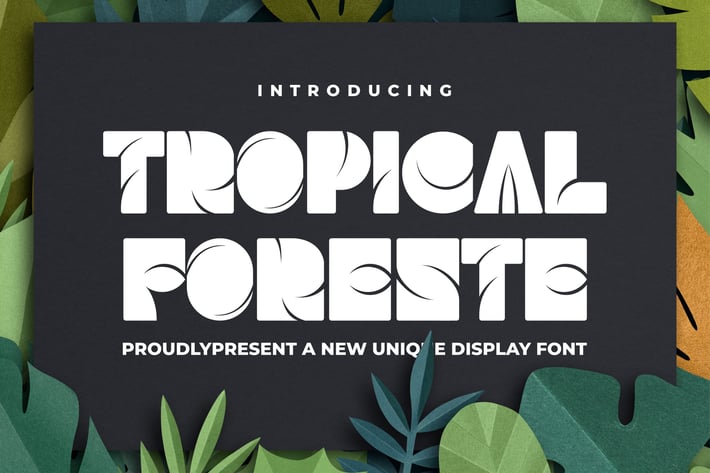
Tropical Foreste a New Unique Display Font
Introducing the Tropical Foreste a New Unique Display Font. Very suitable to be combined with invitation card designs, company logos, film titles, film names, business cards, book titles, brand names and various other designs. Its stylish alternation and binding make this font the perfect partner for any project.
- Uppercase and lowercase
- Numbering and Punctuation